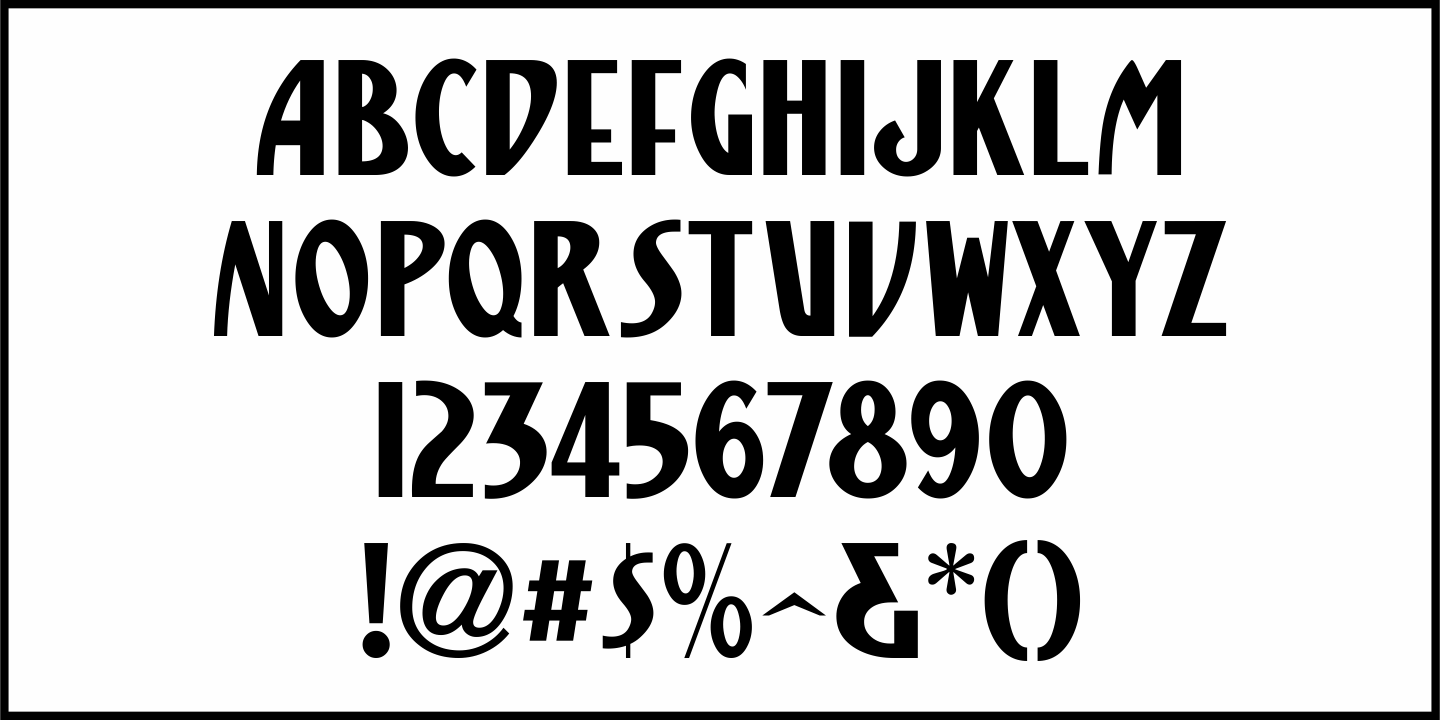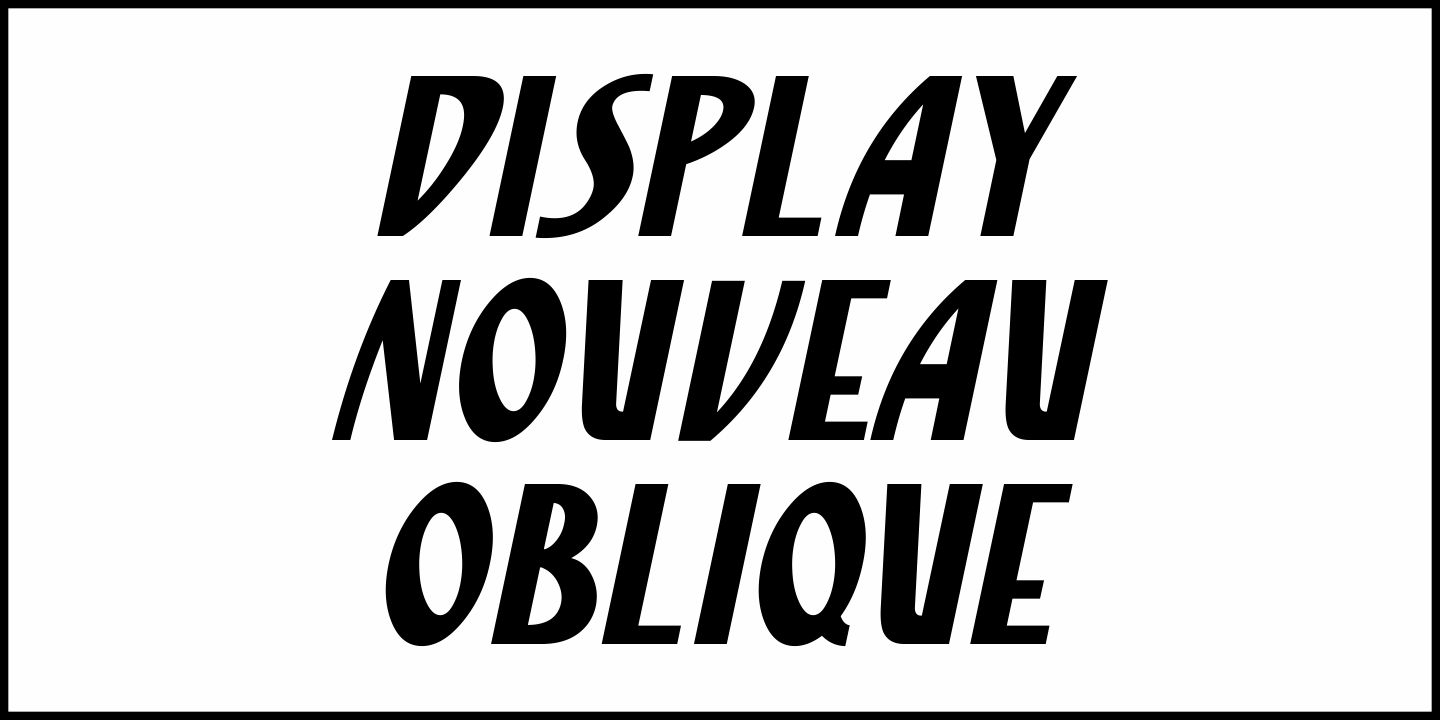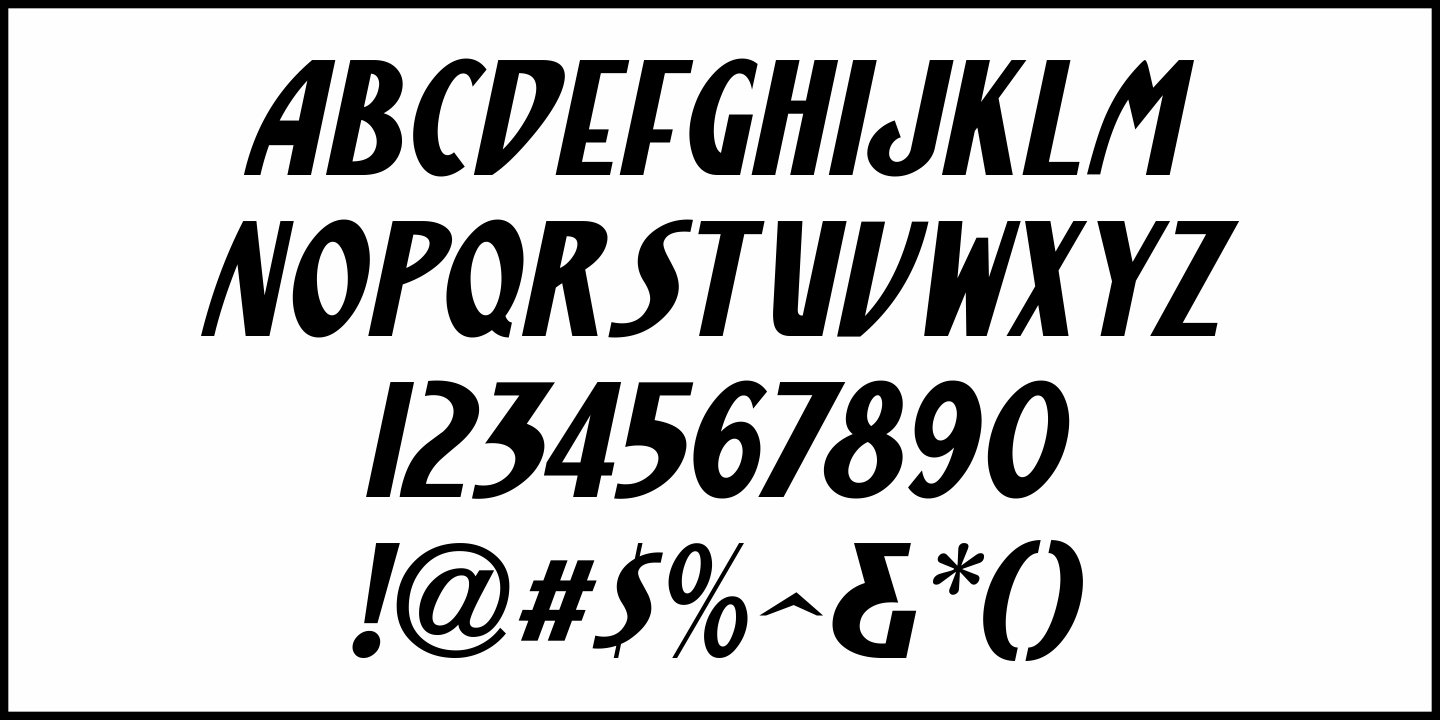
Display Nouveau
Display Nouveau JNL is based on hand lettered copy from an ad for the General Film Company in the August 14, 1915 issue of Motion Picture News, and is available in both regular and oblique versions.